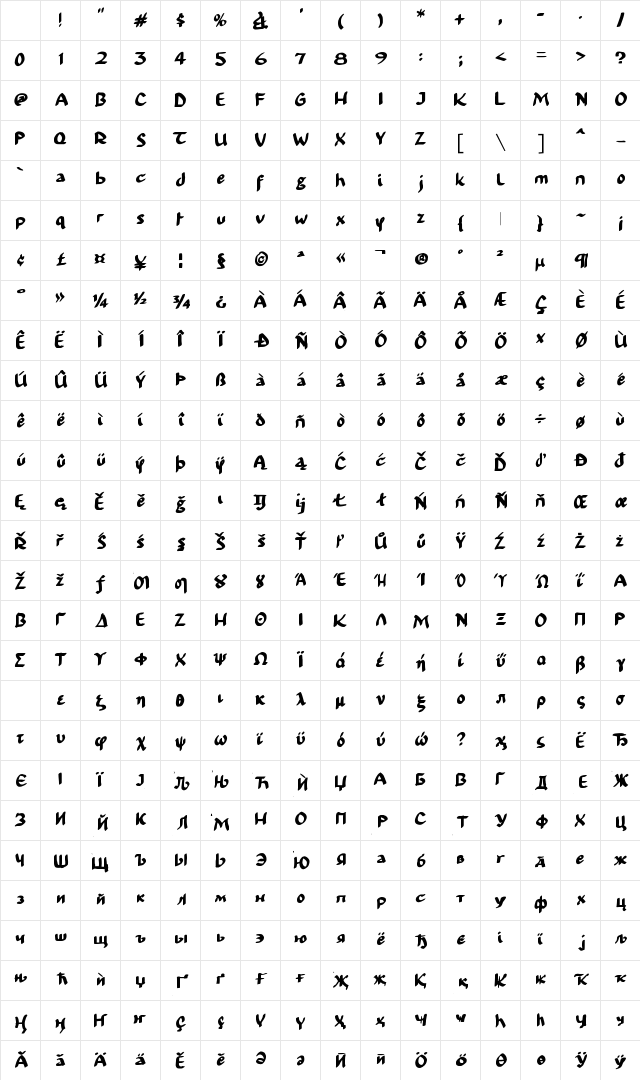
Complete 99% OCCUPY FONT glyph index. Displaying only characters natively supported by 99% OCCUPY FONT font.
99% OCCUPY is a composed and adaptable typeface that performs quietly and consistently across a wide range of design contexts.